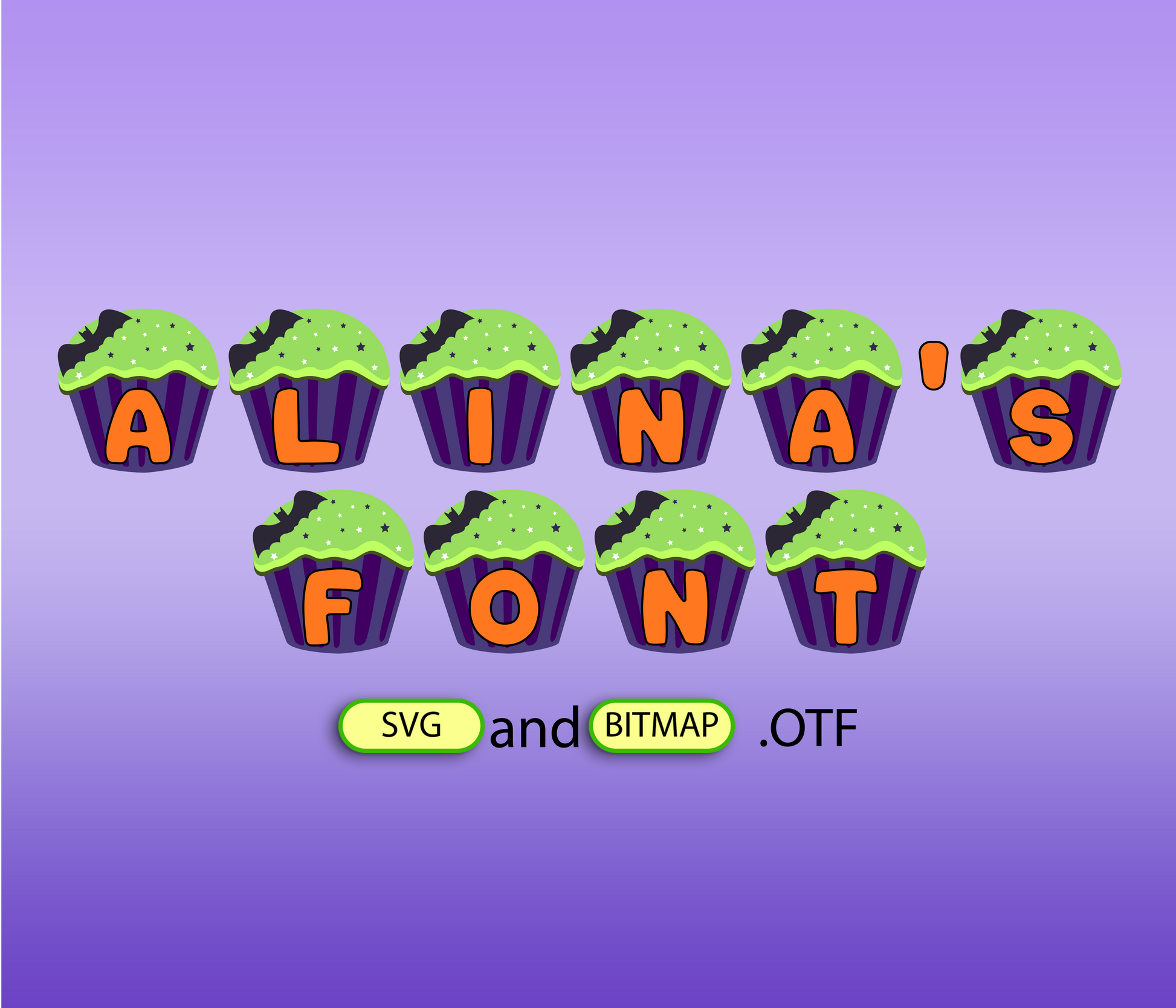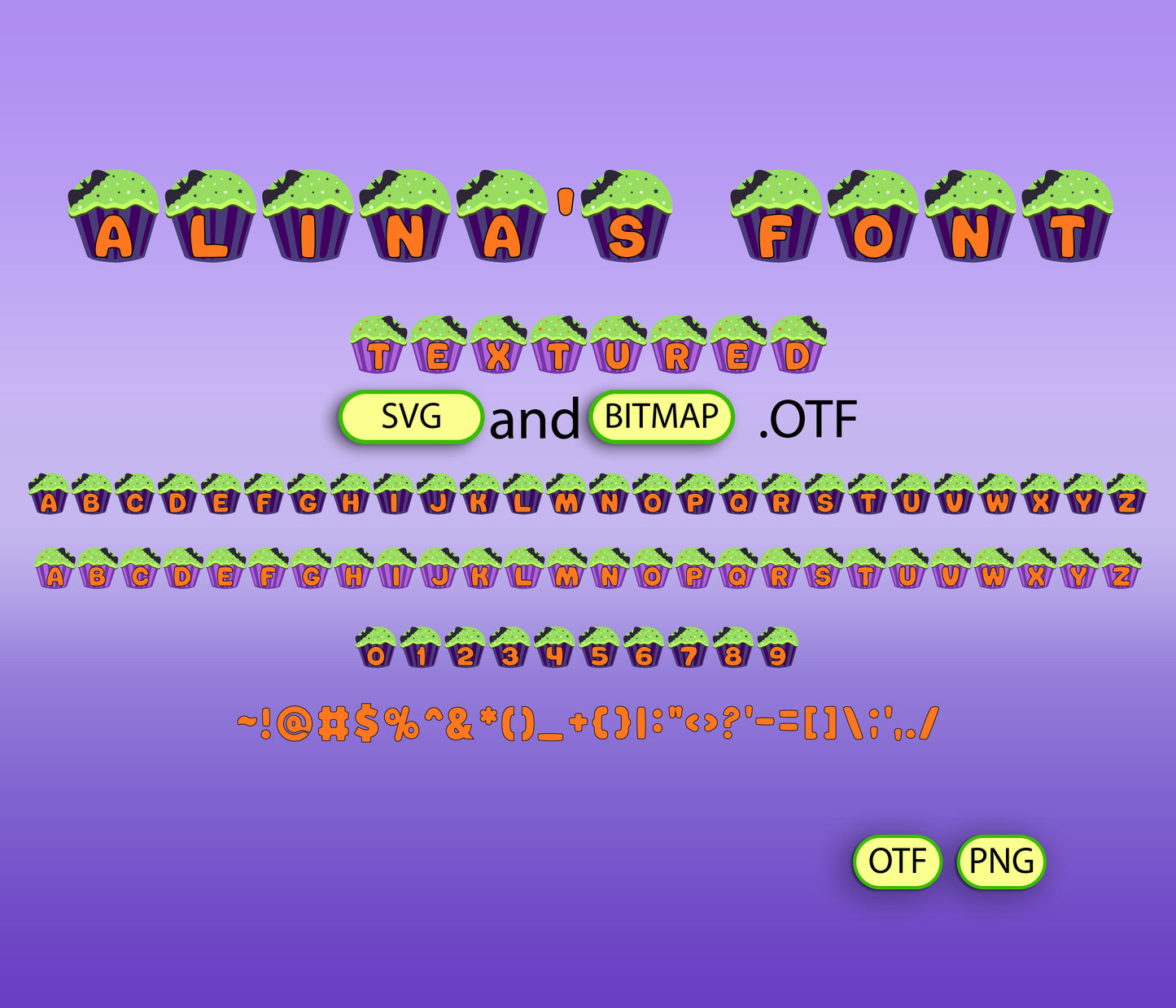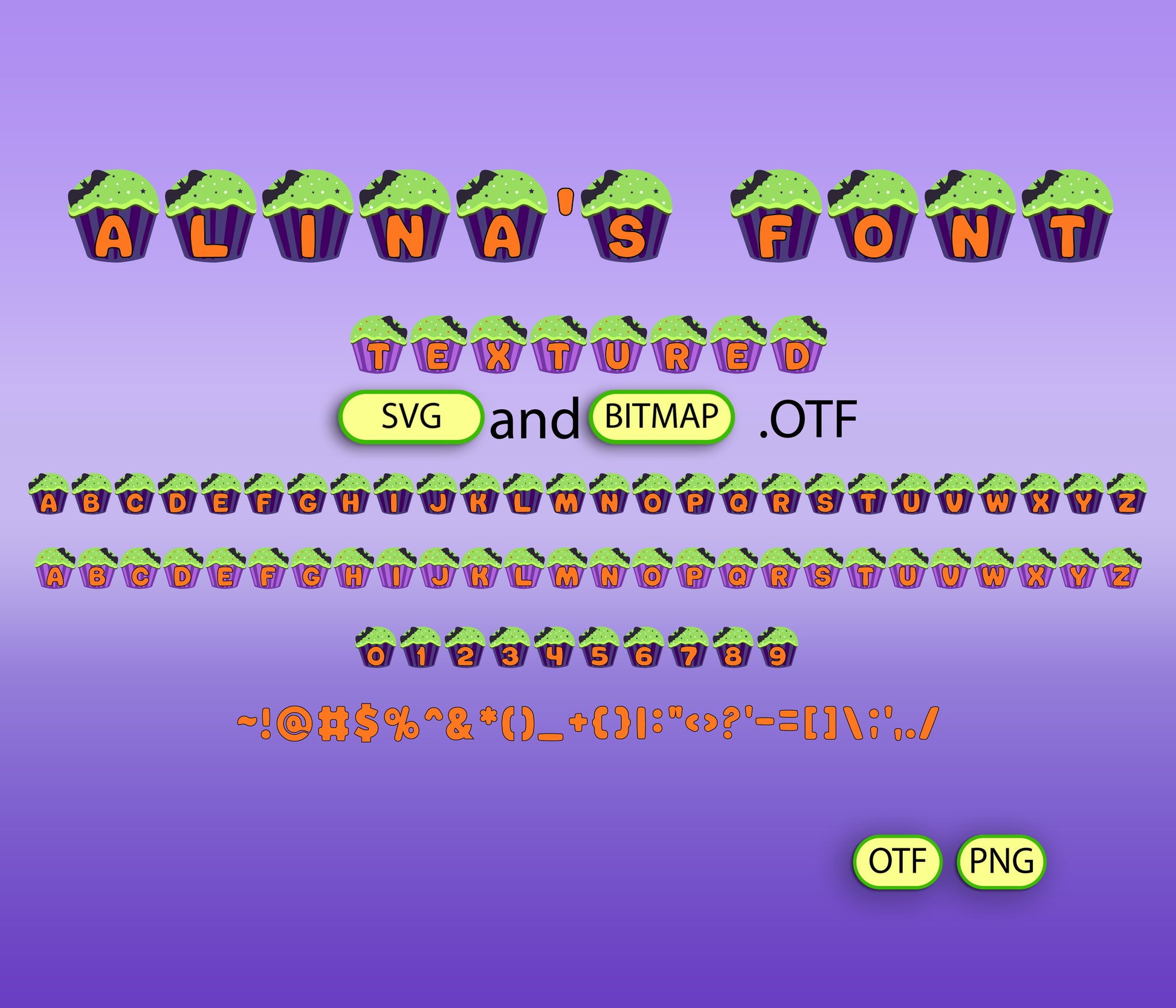
Halloween Muffin Pattern Font
The Sweet Charm of Halloween Muffin Font
Indulge in the delightful fusion of Halloween excitement and cozy bakery warmth with our Halloween Muffin Bundle Fonts. This unique collection blends the festive spirit of Halloween with the comforting, homey feel of freshly baked muffins. Each font in the bundle is inspired by the playful side of Halloween, featuring designs that remind you of sweet treats and whimsical Halloween decorations. It's a perfect choice for projects that aim to capture the heartwarming and fun essence of a Halloween-themed bakery.
What font is the Halloween Color Fonts?
Imagine a typeface that combines the joviality of Halloween with the soft, comforting contours of muffin tops. This collection is designed to bring a unique, bakery-inspired touch to Halloween-themed projects. The fonts in the bundle are characterized by their playful and inviting appearance, incorporating elements that reflect both the spookiness of Halloween and the warmth of a muffin. With an extensive character set, including alphabets, numbers, and special symbols, this bundle offers a versatile toolkit for a wide range of creative designs.
What Can You Do With Halloween Color Fonts?
The Halloween Muffin Bundle Fonts are perfect for a variety of charming and inviting applications:
- Bakery and Café Promotions: Ideal for creating seasonal marketing materials for bakeries and cafés offering Halloween treats.
- Festive Party Invitations: Design unique invitations for Halloween parties that have a cozy, homey theme.
- Themed Apparel and Merchandise: Create clothing and accessories that blend the fun of Halloween with the appeal of a bakery.
- Digital and Print Graphics: Enhance websites, social media, and printed materials with a touch of Halloween sweetness.
- Custom Stationery and Packaging: Design stationery and packaging that exudes the warmth of Halloween and baked goods.
- Educational Materials: Use in classroom resources for engaging, Halloween-themed lessons with a culinary twist.
- DIY Projects and Crafts: Ideal for scrapbooking, crafting, and artistic projects inspired by Halloween and baking.
- Event Decorations: Create decorations for Halloween events that feature a cozy, bakery-inspired aesthetic.
- Gourmet Product Branding: Craft distinctive branding for gourmet products with a Halloween theme.
- Seasonal Retail Displays: Develop captivating displays for shops and boutiques celebrating Halloween.
The Halloween Muffin Bundle Fonts is not just a collection of typefaces; it's an invitation to blend the playful spirit of Halloween with the cozy allure of a bakery.